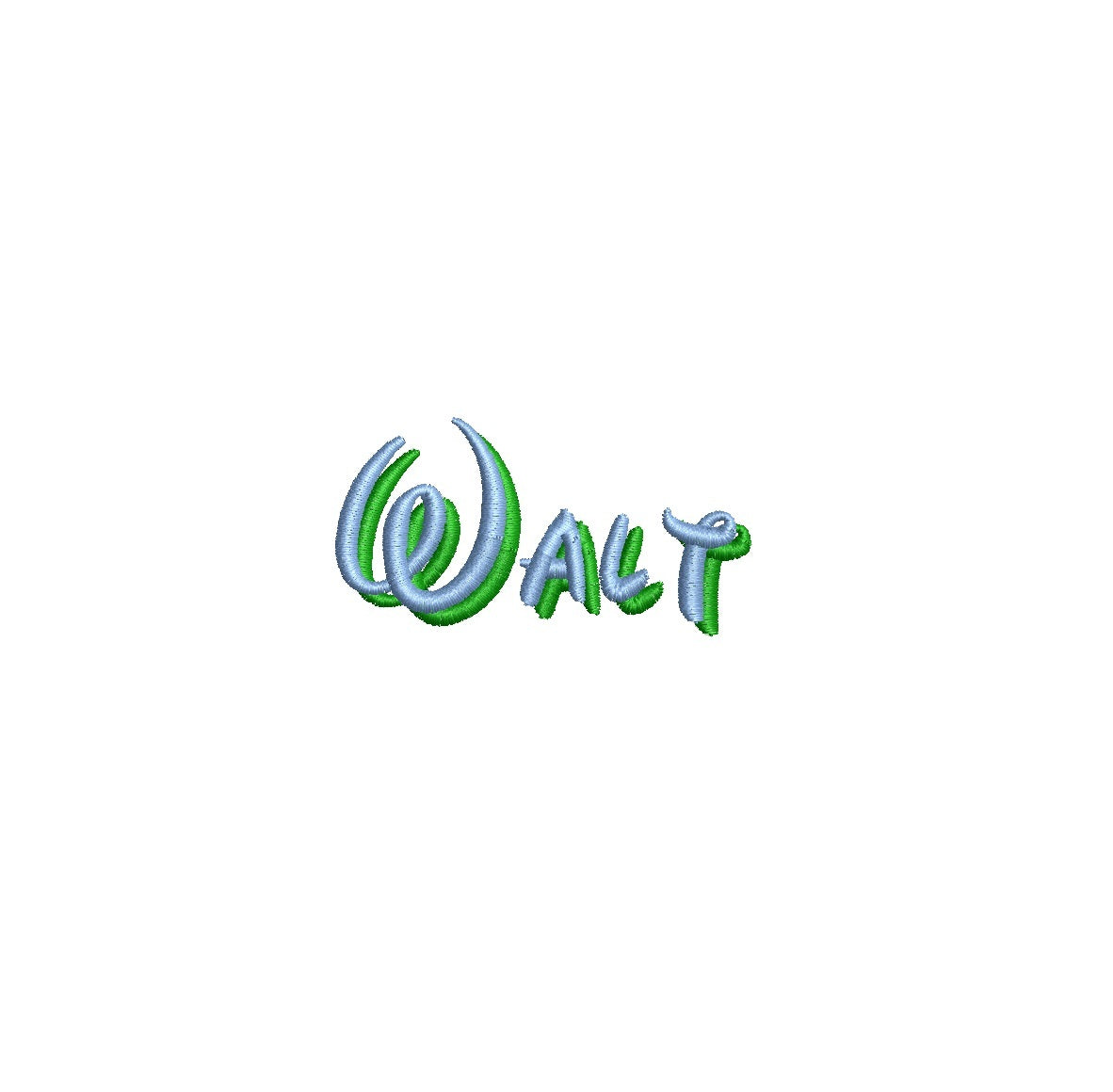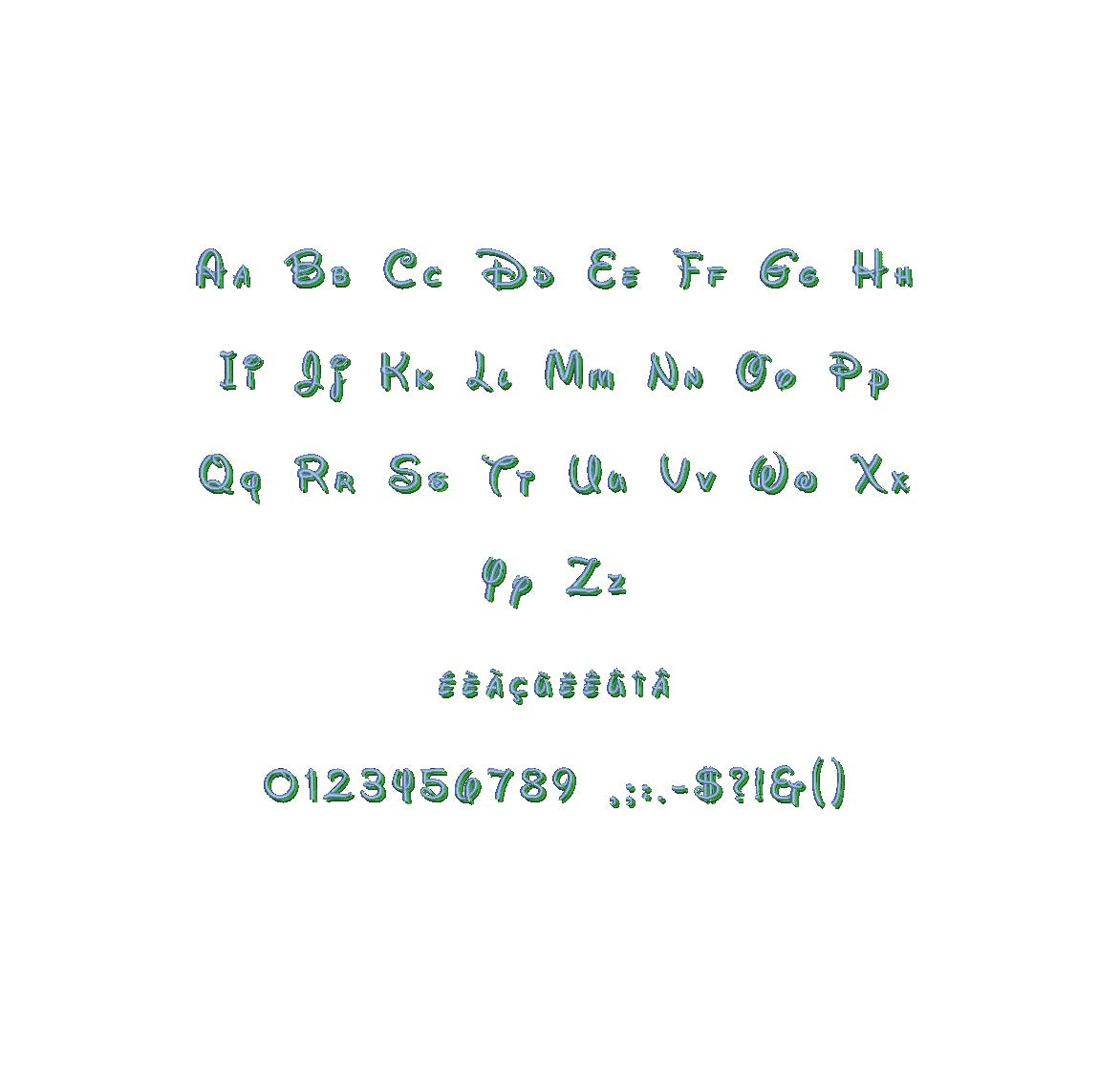
Walt Shadow ESA font
Elevate your embroidery with the timeless Walt Shadow ESA font. Crafted for Wilcom Studio e4.5.6 and Hatch 3 versions and newer, this font seamlessly blends tradition and compatibility. Create captivating designs with its graceful shadow effect, adding depth and allure to your lettering. Ideal for various applications, from classic monograms to elegant text layouts. Unleash your creativity as Walt Shadow ESA font enriches your embroidery. Elevate your designs and leave a lasting impression. Choose this font to infuse your creations with a touch of timeless beauty, redefining your embroidery artistry with a hint of sophistication.